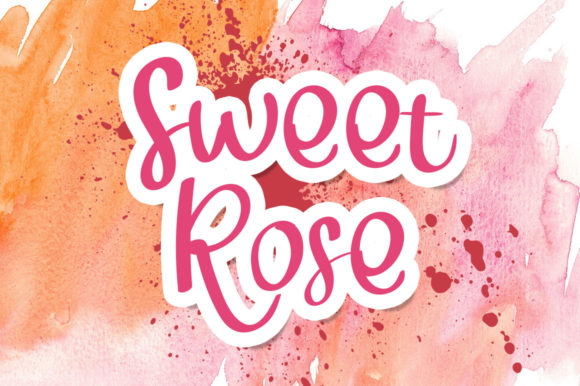
Introducing Sweet Rose: A Touch of Elegance for Your Digital Creations
In a world where visual appeal captivates hearts and minds, Sweet Rose emerges as an enchanting script font, ready to transform your digital creations into masterpieces. With its graceful curves and elegant lines, Sweet Rose exudes a timeless sophistication that speaks volumes.
Imagine wedding invitations that whisper romance, thank-you cards that convey heartfelt gratitude, and quotes that resonate with profound beauty, all adorned with the exquisite charm of Sweet Rose. Its delicate strokes lend a personal touch to logos and business cards, leaving a lasting impression on clients and customers alike.
Whether you're a seasoned designer or just starting your creative journey, Sweet Rose is your perfect companion. Its versatility knows no bounds, adding a touch of magic to every project, from social media posts to website headers and beyond. Let Sweet Rose elevate your designs to new heights, captivating audiences with its timeless elegance.
With Sweet Rose, the possibilities are endless. Unleash your creativity and let its beauty infuse your words with an unforgettable charm. Create designs that evoke emotions, connect with hearts, and leave a lasting impact on your audience.